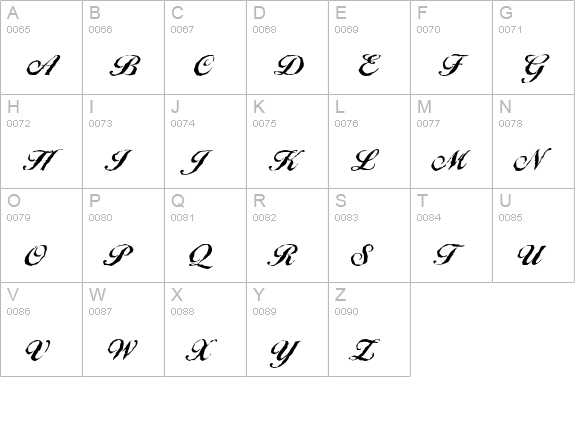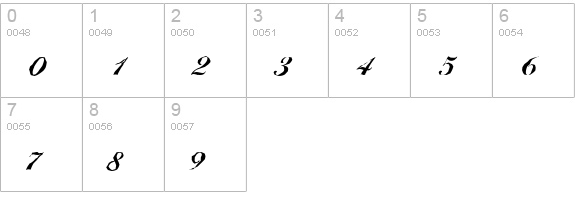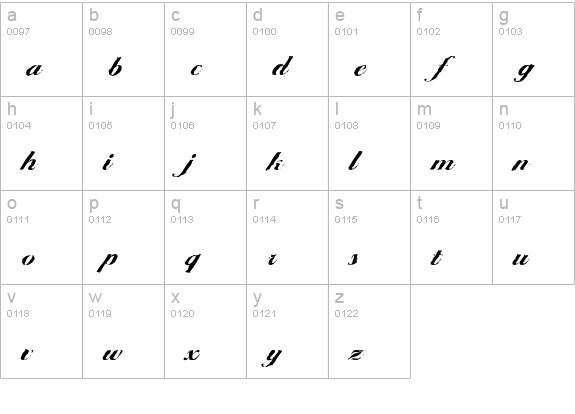
BallantinesAntique-Xbold-Regular is the standard, neutral variant in the BallantinesAntique typeface family \xE2\x80\x94 well suited to general body text, paragraphs, and standard typographic work.
BallantinesAntique-Xbold-Regular font is a classic and timeless typeface that exudes elegance and sophistication. Its bold and striking design makes it perfect for headings, titles, and any text that needs to make a strong impact. With its antique-inspired details and refined appearance, this font brings a sense of history and tradition to any design project. The best part is that BallantinesAntique-Xbold-Regular font is available for free download at FontsMarket.com. This means you can easily add this beautiful typeface to your collection without any cost. Whether you're working on a print design, web project, or any other creative endeavor, BallantinesAntique-Xbold-Regular font is a versatile choice that will elevate your work to the next level. Don't miss out on this opportunity to enhance your designs with this exquisite font!